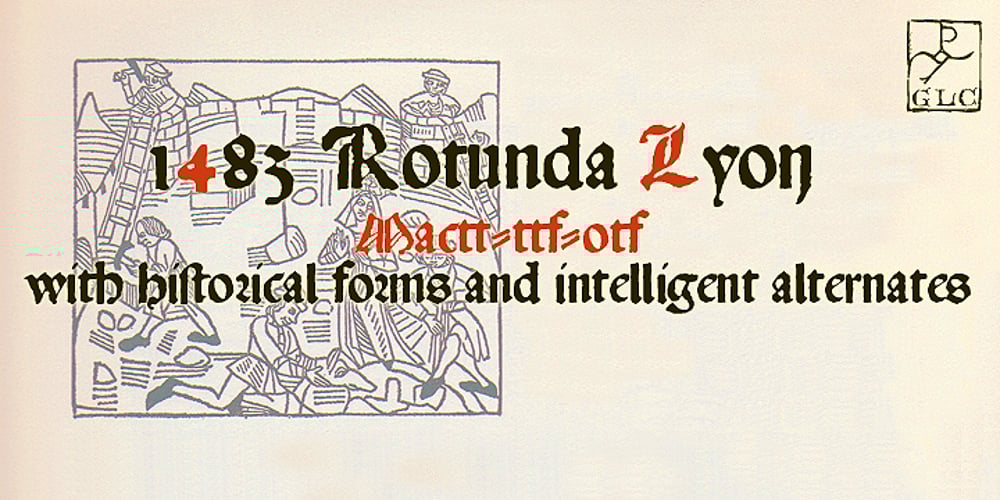
1483 Rotunda Lyon
1483 Rotunda Lyon font
1483 Rotunda Lyon Font Family was designed by published by GLC. 1483 Rotunda Lyon contains 1 styles and family package options. Towards the end of the 1400s, in Lyon (France), was living Barthélémy Buyer, descendant of a rich family of merchants. In the end of 1472, he engaged a typographist from Liège (Belgium): Guillaume Le Roy. The first book stemming from their print shop was the Compendium breve ( by Pope Innocent III.) using Blackletter “textura”. Many books followed, most often illustrated with wood carving. In 1483, to print a French translated “Eneide”, they used a venetian “Rotunda” blackletter. Our font was inspired by this “Rotunda” set, with historical forms and ligatures enriched with accented letters and other characters not existing in the original.